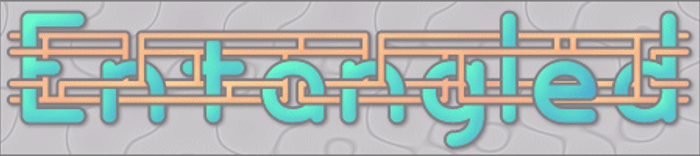
Entangled (BRK) Font
With the fonts above (except Plain) use « and » to make 'Caps' at
the ends of your text.
With Entangled Layer A and B, Layer A are the Characters and Layer B
are the Lines that weave around the characters. These 'Layer' fonts
are best used in graphic (or illustration) programs that use Layers.